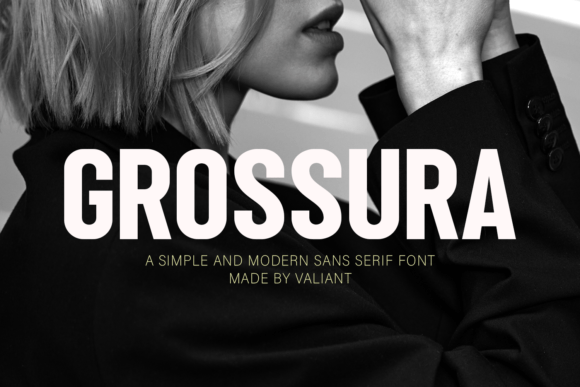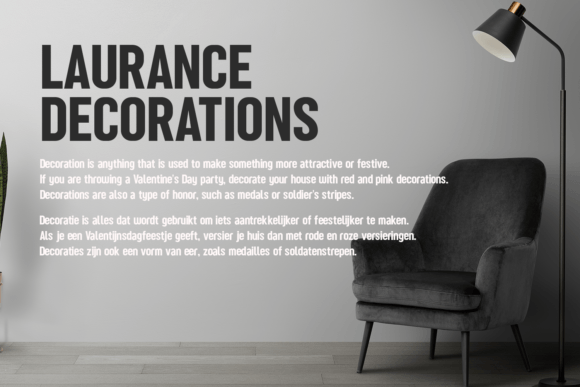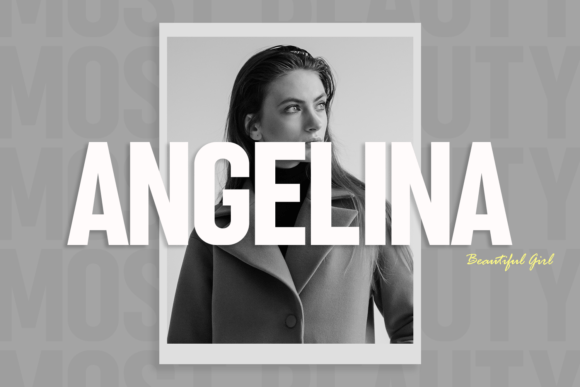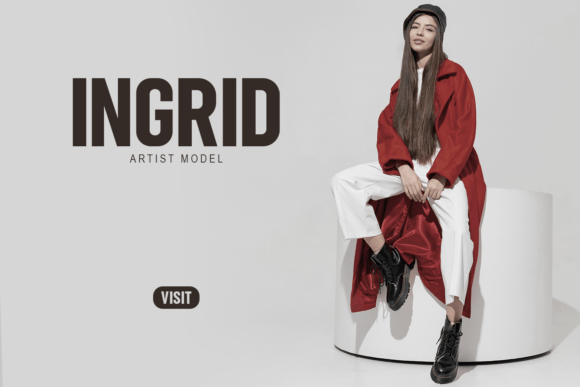
Grossura Font: Modern Minimalist Sans Serif for Logo Design & Branding
About the Grossura Font
Introducing the Grossura Font, a beautifully crafted typeface designed to elevate your creative projects. Delve into the sophistication of Grossura Sans Serif, an elegantly modern and streamlined font. Perfect as a standout feature for logos, titles, branding, or even adornment for magazine covers, product packaging, and invitations. Infused with historical grandeur, Grossura Sans Serif personifies polished charm with its clean lines and smooth curves. Elevate your projects with a touch of timeless class, effortlessly exuding an undeniable allure that captivates audiences with each graceful stroke.
Grossura’s elegant modernity makes it ideal for headlines, logos, and short-form text where its refined details shine. It excels in branding applications requiring a touch of sophistication, and works beautifully on packaging for high-end products. Avoid using it for body text or lengthy paragraphs; its refined strokes aren’t optimized for extended readability.
Consider pairing Grossura with a clean sans-serif like Lato for a balanced, contemporary feel, or a classic serif like Garamond for a touch of traditional elegance. For a more playful contrast, a rounded sans-serif like Montserrat could work well.
The overall personality of Grossura is sophisticated and confident, lending itself to brands projecting luxury, quality, or timeless style. Its subtle curves and refined details create a sense of understated elegance.
Grossura Font Usage Examples
Grossura Font Example